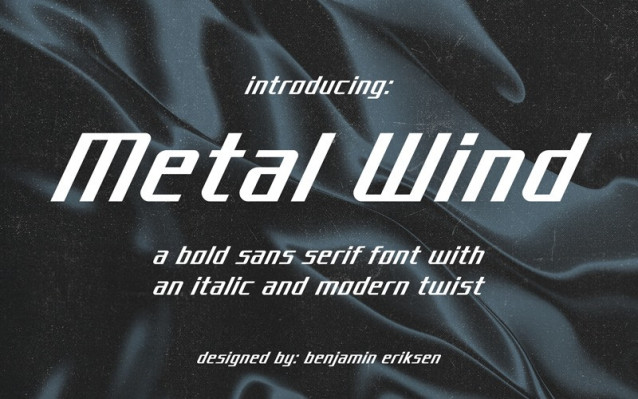
Metal Wind Font
Metal Wind Font is a dynamic handwritten script font that captures a natural and expressive flow. Its letterforms are designed with smooth, fluid strokes that resemble wind-like motion, giving the typeface a sense of elegance and movement.
The font features a casual yet stylish appearance, with organic curves and connected characters that enhance its handwritten feel. This makes it visually appealing while still maintaining good readability.
Metal Wind is well-suited for creative and decorative projects such as invitations, social media graphics, branding, packaging, logos, and other designs that require a personal and artistic touch. Its modern script style adds warmth and sophistication to any composition.